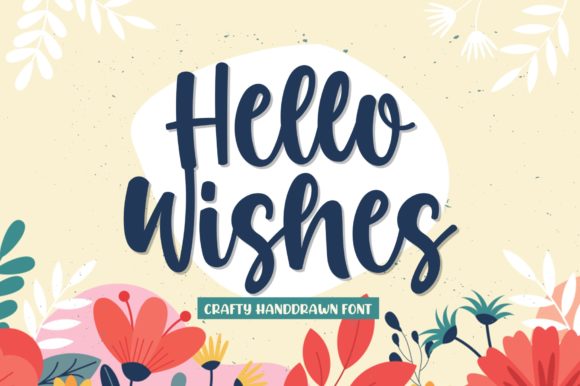
Behold the Hello Wishes Font, a script font adorned with an aura of elegance and delicacy. This exceptional creation by goodjavastudio captures the essence of artistry, inviting you to embark on a journey of creative exploration. Let your designs blossom with the Hello Wishes Font, the perfect companion for expressing your heartfelt sentiments and capturing life's most precious moments.
Immerse yourself in the charm of Hello Wishes Font's distinctive and well-rounded letters, each meticulously crafted to exude a sense of sophistication. Experience the allure of its flowing strokes and graceful curves, adding a touch of timeless beauty to your digital masterpieces. Whether crafting heartfelt quotes, enchanting invitations, or captivating social media posts, Hello Wishes Font elevates your designs, transforming them into visual expressions of art.
Indulge in the Hello Wishes Font's incredible versatility, allowing your creativity to flourish without boundaries. Its adaptability shines through in a myriad of applications, from logos and branding to website designs and social media graphics. Unleash your imagination and let the Hello Wishes Font weave its magic, adding a touch of elegance and sophistication to every project you undertake.
Embrace the Hello Wishes Font as your trusted ally in creating stunning designs that captivate and inspire. Its user-friendly nature ensures a seamless experience, allowing you to effortlessly integrate it into your design workflow. Discover the limitless possibilities that await you with the Hello Wishes Font, your gateway to a world of creative fulfillment.